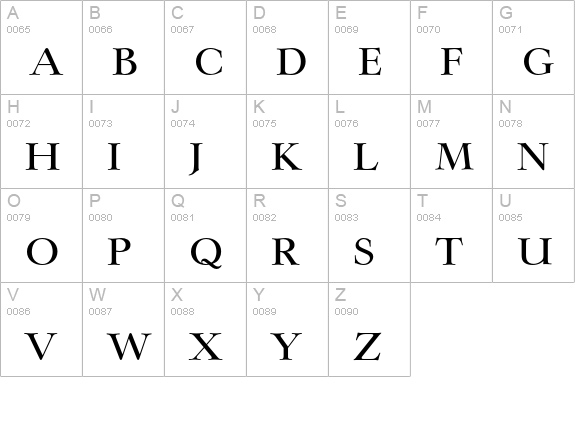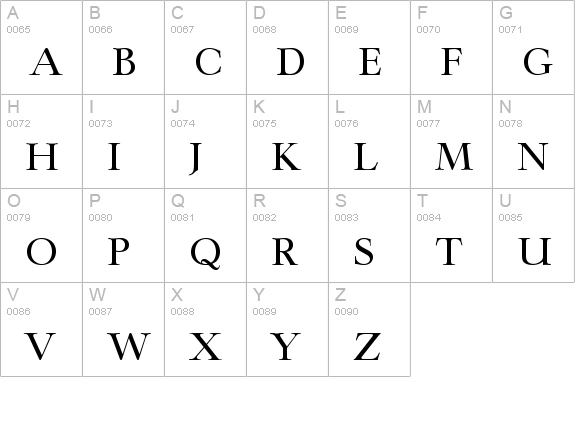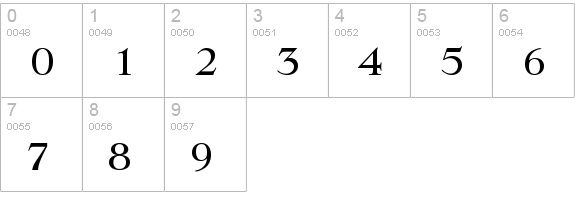
LingwoodEF-Medium is a balanced, medium-weight variant in the LingwoodEF typeface family \xE2\x80\x94 well suited to sub-headlines, navigation, and balanced editorial work.
LingwoodEF-Medium is a sleek and modern font that exudes sophistication and elegance. Its medium weight strikes the perfect balance between readability and style, making it an ideal choice for a wide range of design projects. Whether you're working on branding, editorial design, or web graphics, this versatile font will add a touch of class to your work. The best part? LingwoodEF-Medium is available for free download at FontsMarket.com. This means you can elevate your designs without breaking the bank. Don't miss out on the opportunity to enhance your projects with this exquisite font – download LingwoodEF-Medium today and start creating stunning visuals that stand out from the crowd.